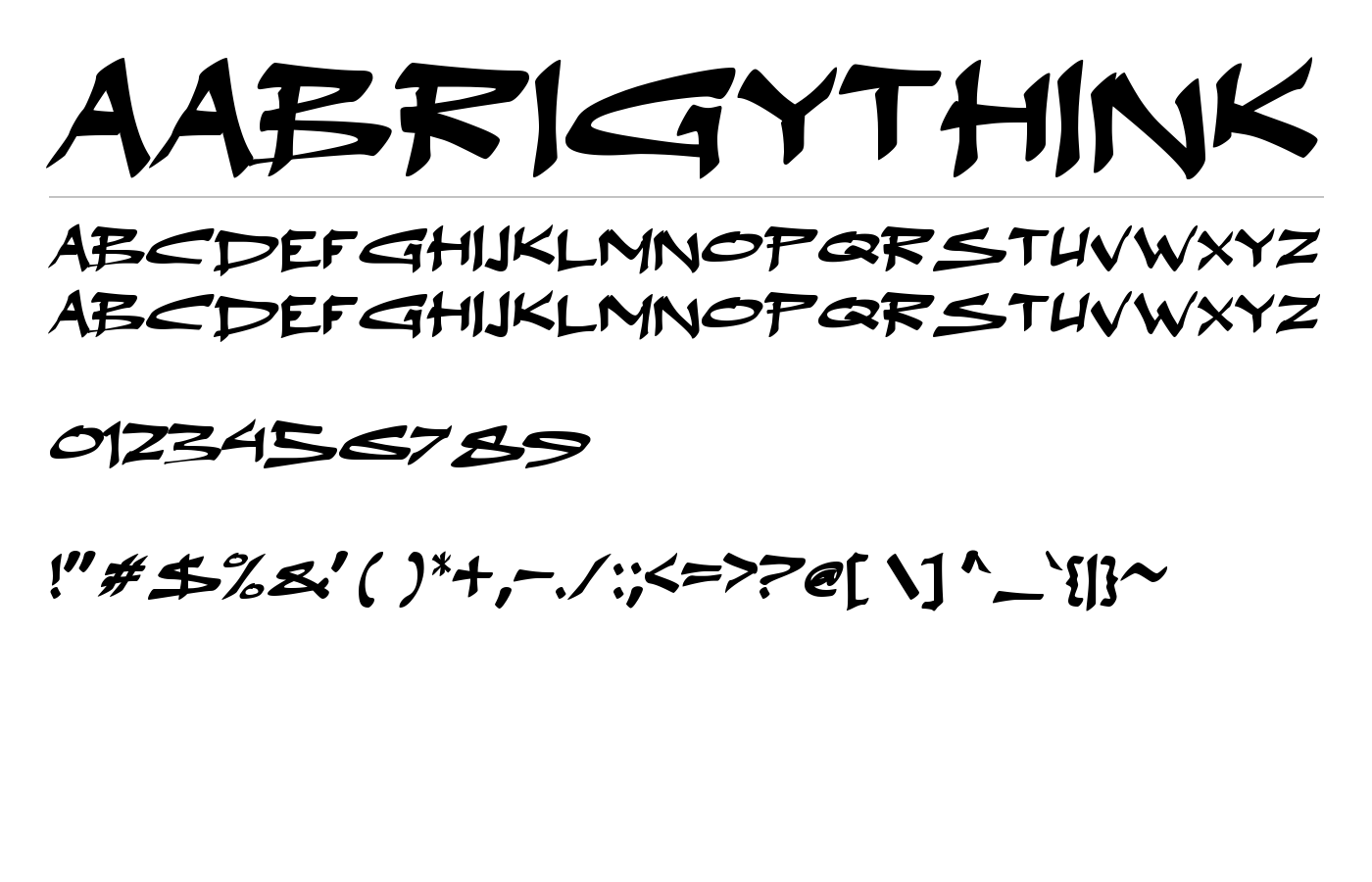
aAbrigyThink is a bold, expressive display font with sharp, angled strokes that give it a dynamic, hand-drawn feel. Its condensed letterforms and energetic style make it perfect for eye-catching headlines, logos, and designs seeking a modern, edgy personality. This font works well where a strong, creative impact is desired, especially in artistic or youth-oriented branding.
aAbrigyThink Font